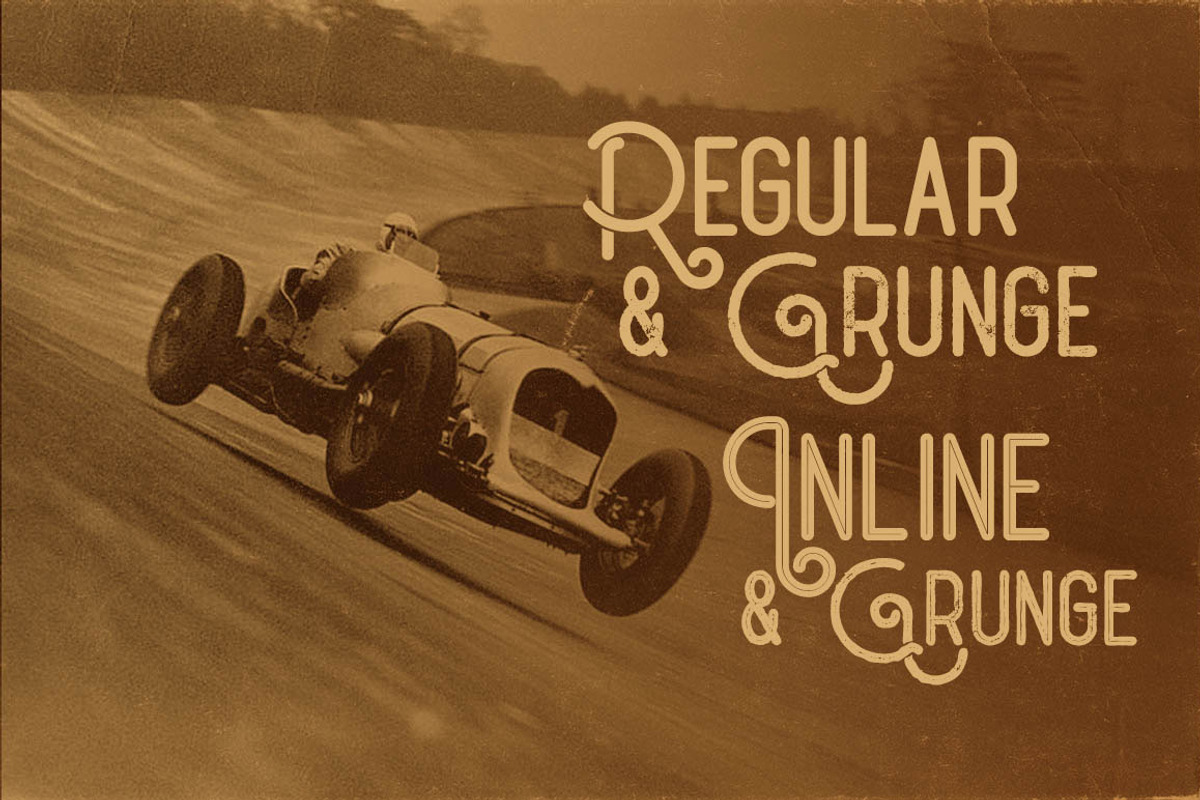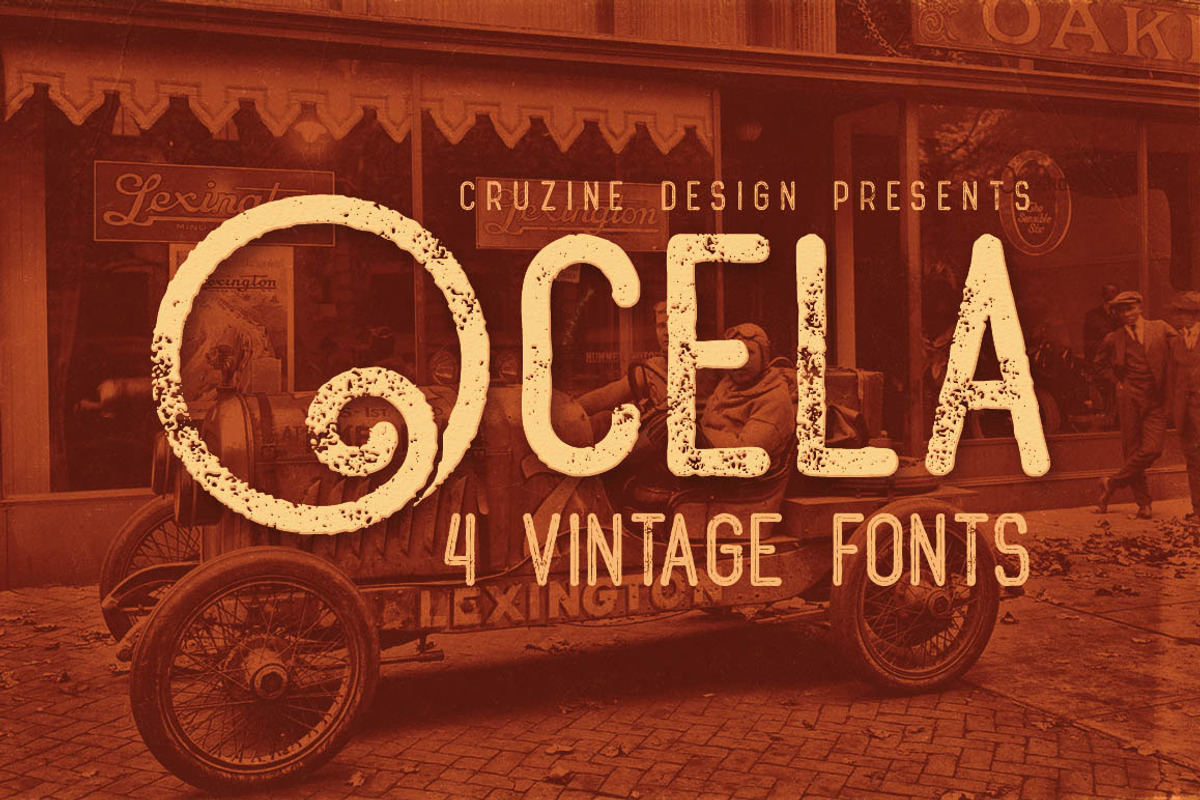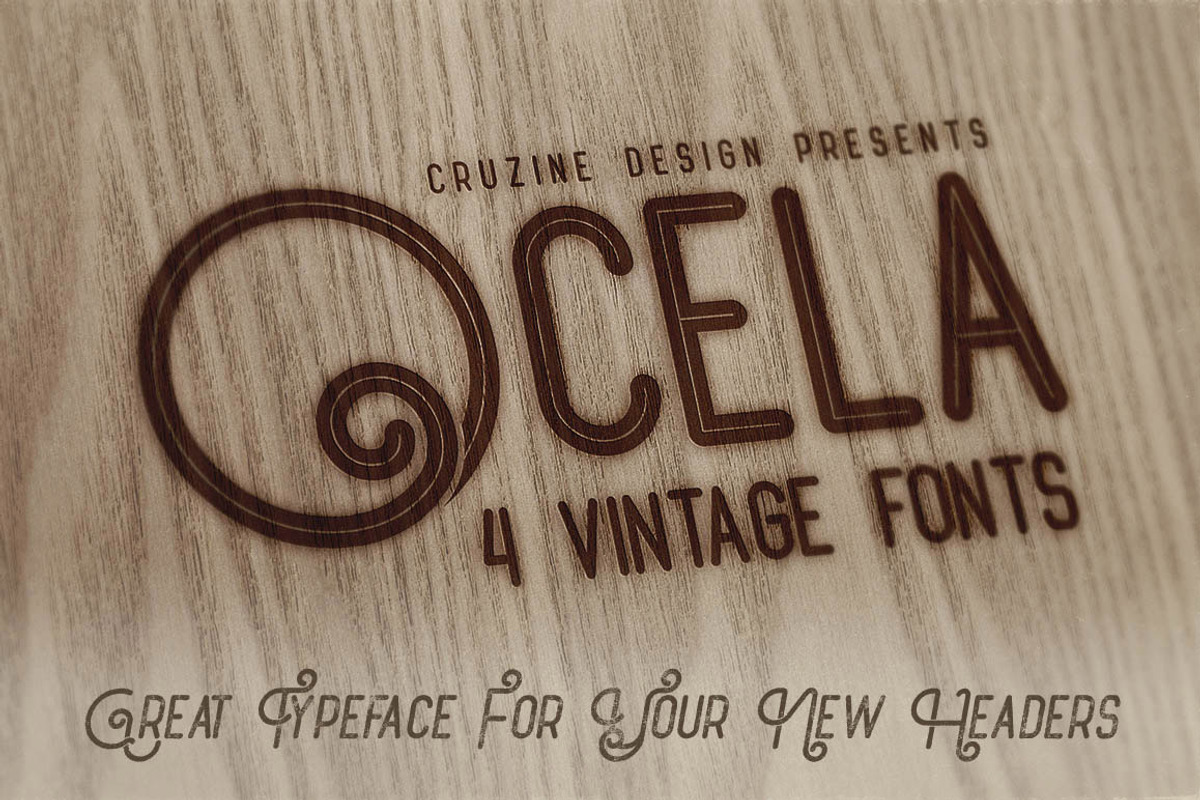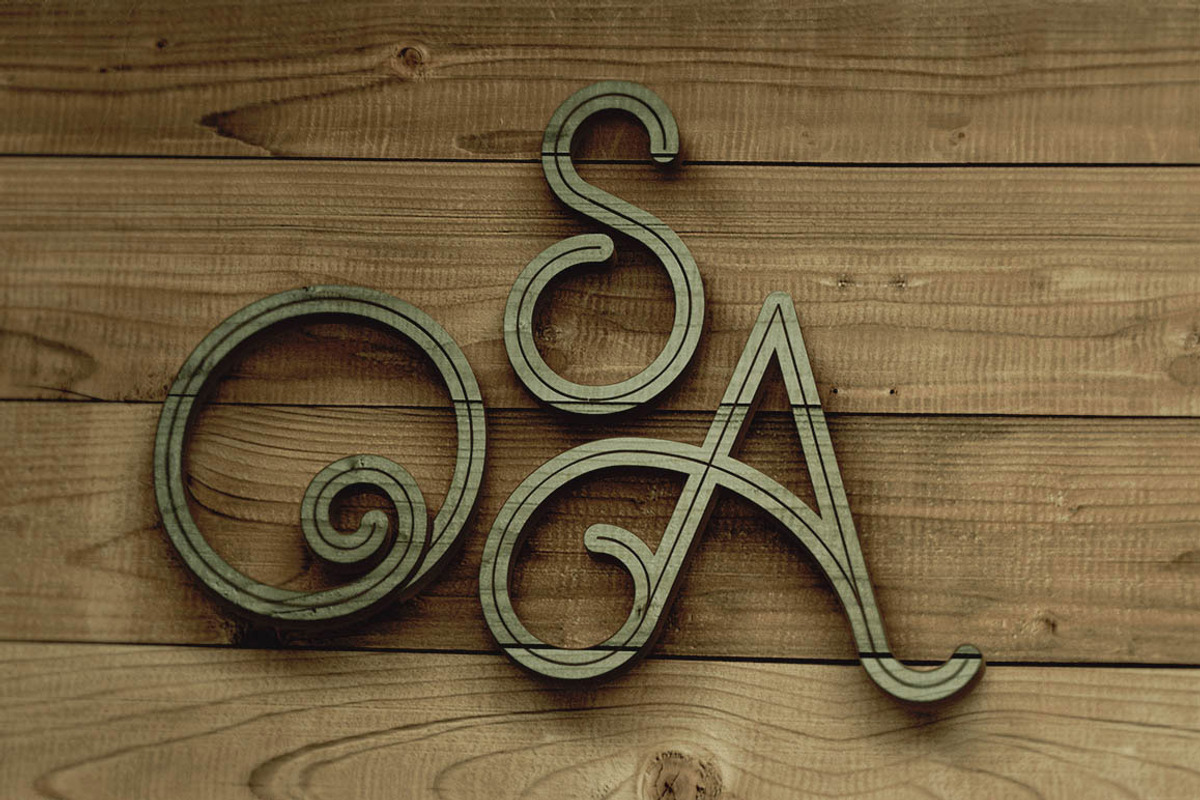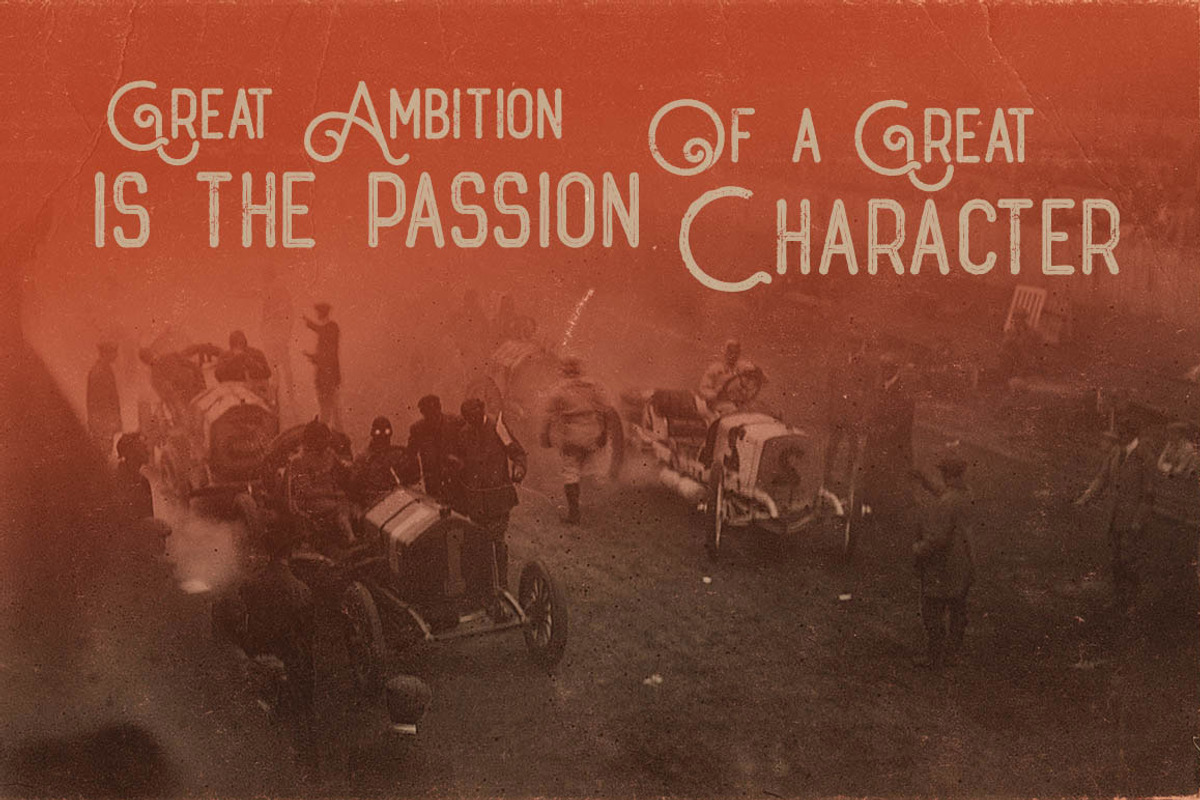
Ocela Typeface
Ocela Typeface by Cruzine is a font selected for branding, posters, packaging, typography.
Why Ocela Typeface is worth a look
Ocela Typeface by Cruzine fits naturally into Branding, posters, packaging, typography.